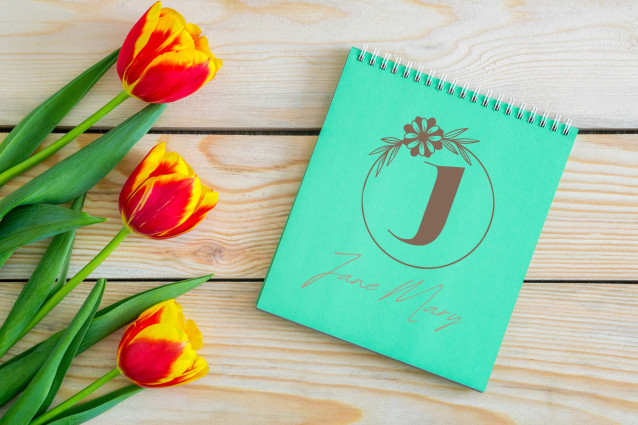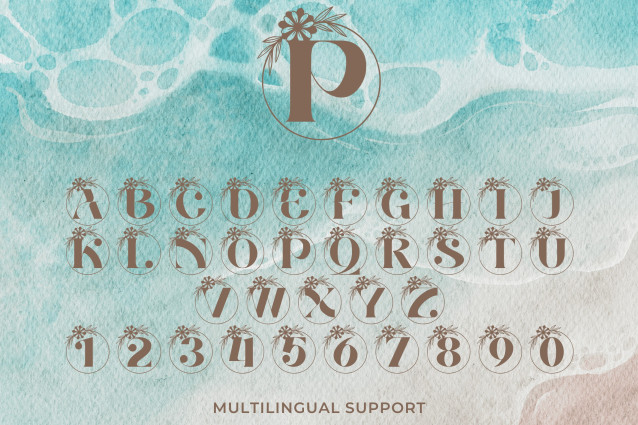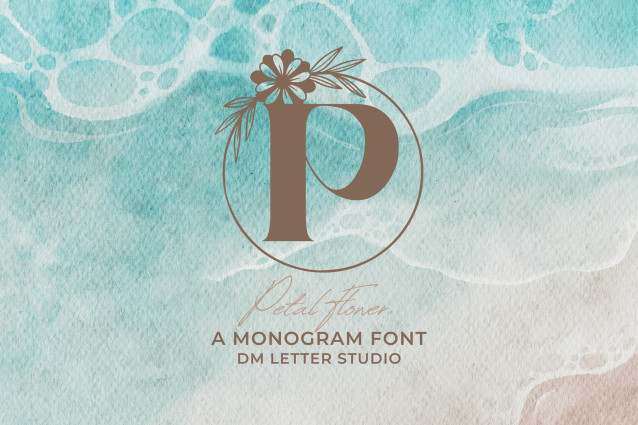
Petal Flower Monogram Font
Petal Flower Monogram is a delicately crafted monogram font inspired by soft flower petals and botanical grace. With each character adorned in hand-drawn floral embellishments, this font is ideal for romantic projects, wedding invitations, springtime branding, personalized gifts, and more. Its subtle yet elegant design brings a natural, heartfelt charm to every detail.